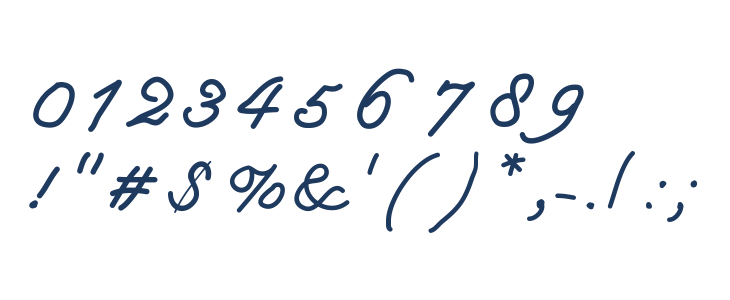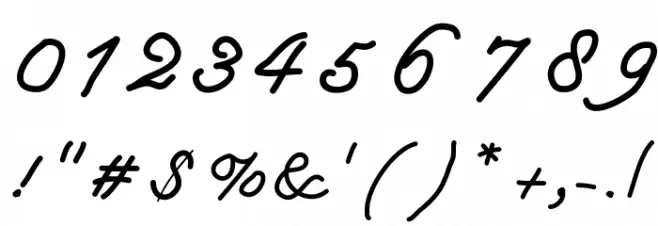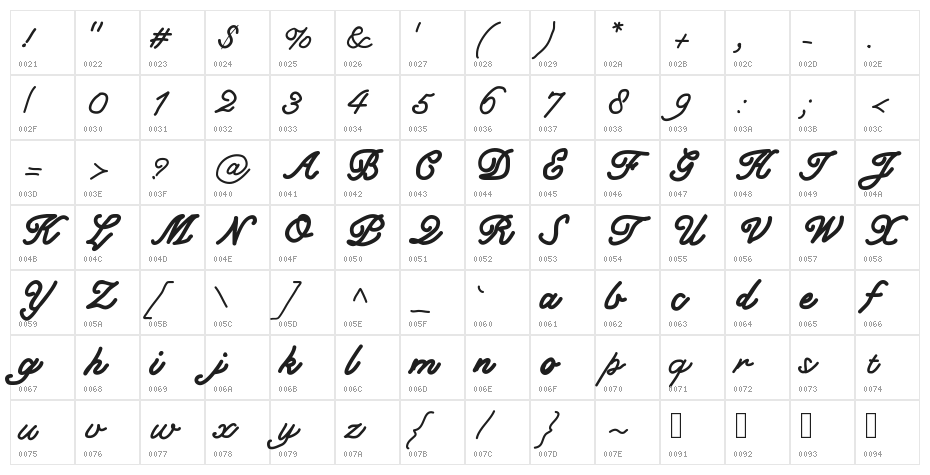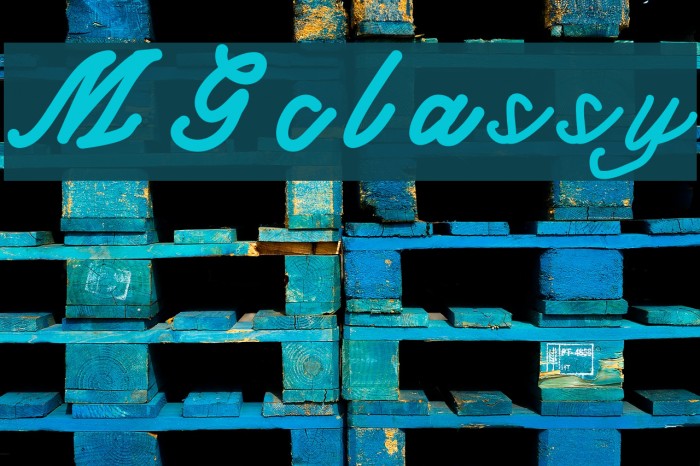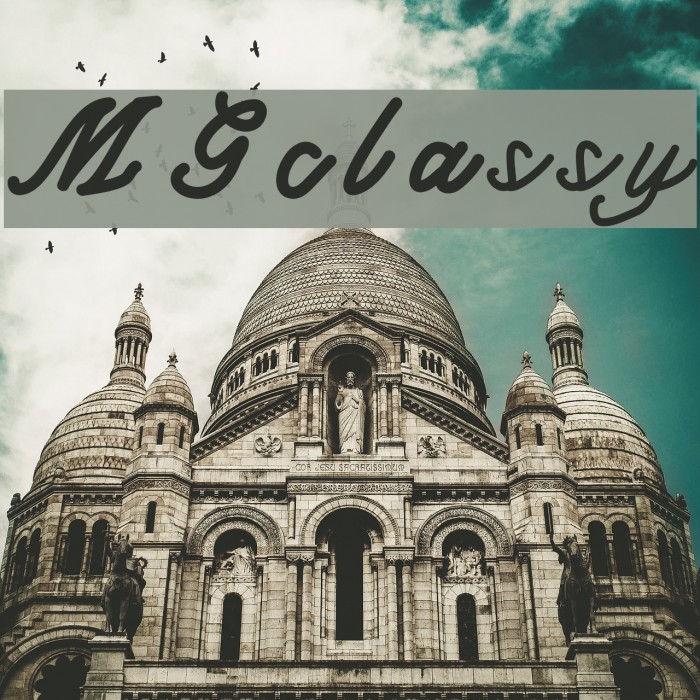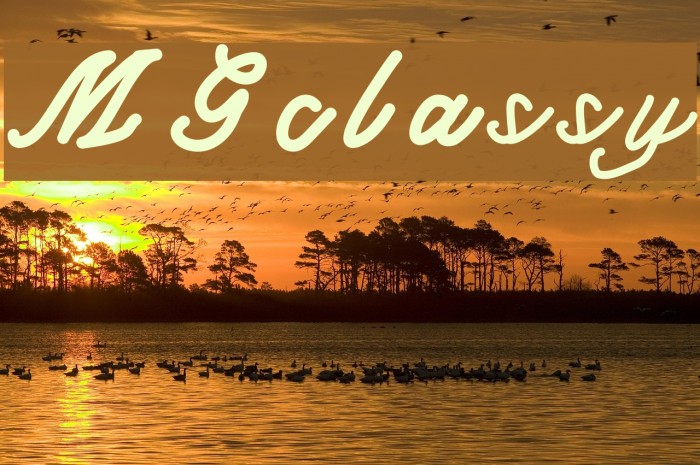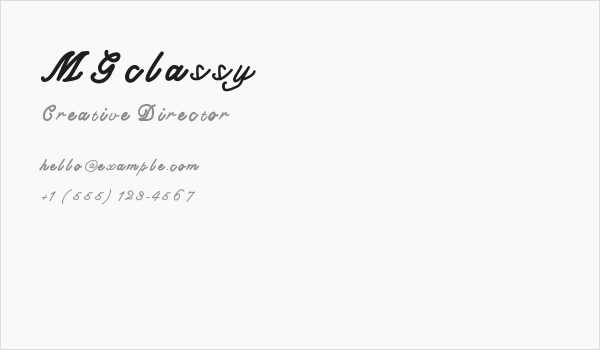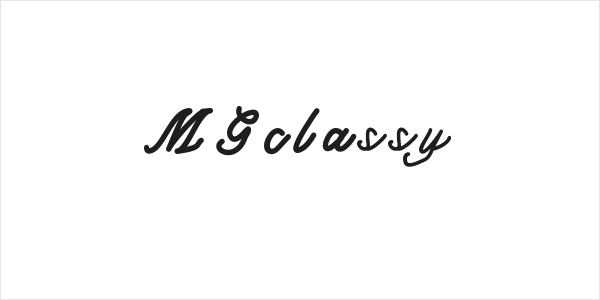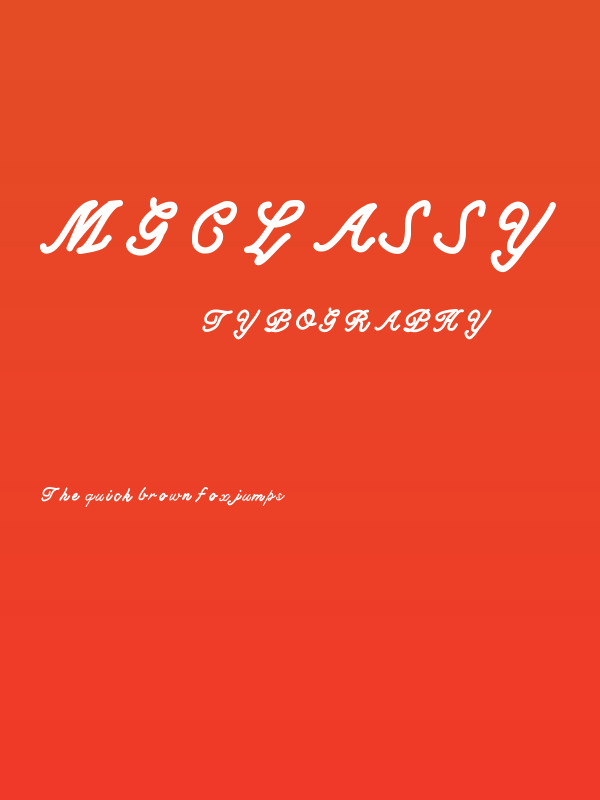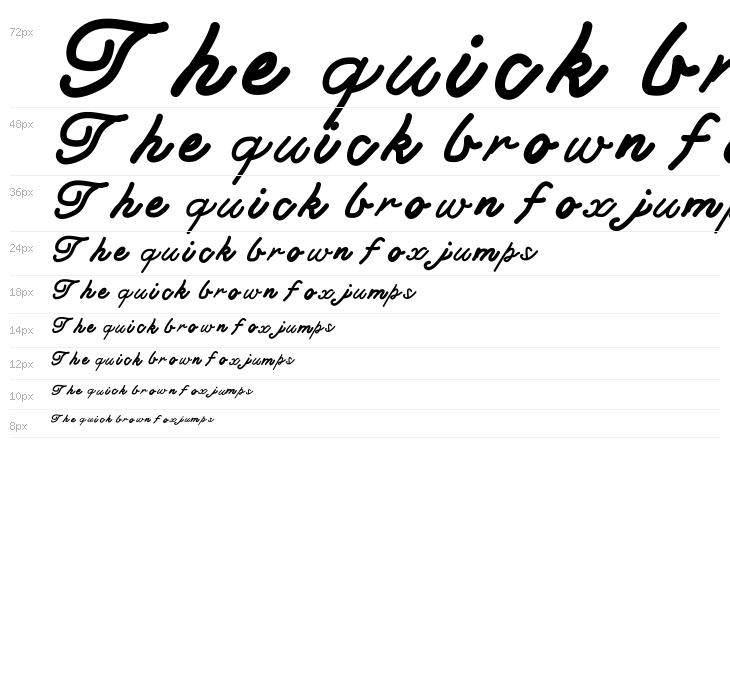
MGclassy Font
MGclassy Description
This font exudes a classic and elegant script style, characterized by its flowing, cursive letters that mimic the fluidity of handwriting. The uppercase letters are slightly more ornate, with subtle flourishes that add a touch of sophistication. The lowercase letters maintain a consistent slant, enhancing the script's natural rhythm and grace. Numbers and special characters are designed to match the overall aesthetic, ensuring a cohesive look across all text. The strokes are moderately thick, providing a balanced contrast that enhances readability while maintaining the font's decorative appeal.
| Proposed Projects | Ideal for wedding invitations, elegant branding, personal stationery, and decorative quotes. |